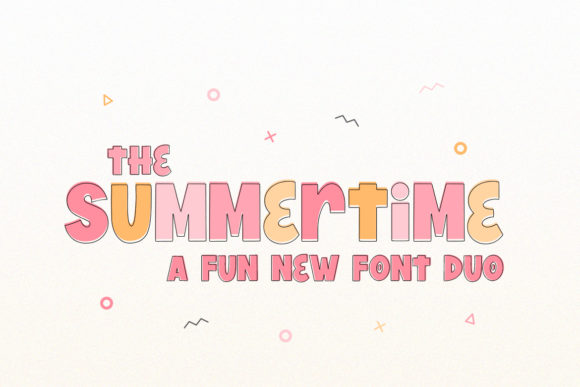
Prepare to be captivated by The Summertime Font, the new standard of expressive typography. Designed with meticulous precision, this display font exudes boldness and authenticity, ready to transform your creative visions into captivating realities.
Step into a world of boundless possibilities with The Summertime Font, a versatile masterpiece designed to elevate your designs to new heights. Its friendly and approachable nature makes it the perfect companion for an array of projects, effortlessly adapting to any context you desire. Unleash your imagination and witness the transformation as your ideas take center stage, adorned with this remarkable font.
With The Summertime Font as your creative ally, you'll discover a font that's as expressive as it is easy on the eyes. Its distinct character adds a personal touch to your projects, whether you're crafting eye-catching logos, designing stunning posters, or creating captivating social media posts. Get ready to make a statement that resonates with your audience, leaving a lasting impression that speaks volumes.
Cricut enthusiasts, rejoice! The Summertime Font is your ultimate companion for bringing your crafting dreams to life. Its unique charm and adaptability make it the perfect choice for creating intricate designs, personalized cards, and delightful decorations. Transform your Cricut creations into masterpieces that exude individuality and charm, impressing your loved ones with your artistic flair.
Don't settle for ordinary fonts. Choose The Summertime Font and embark on a creative journey where your imagination knows no bounds. Its boldness will command attention, its authenticity will add depth, and its versatility will prove invaluable as you explore new design frontiers. Experience the difference and see your projects come alive with a font that truly captures the essence of your creative spirit.